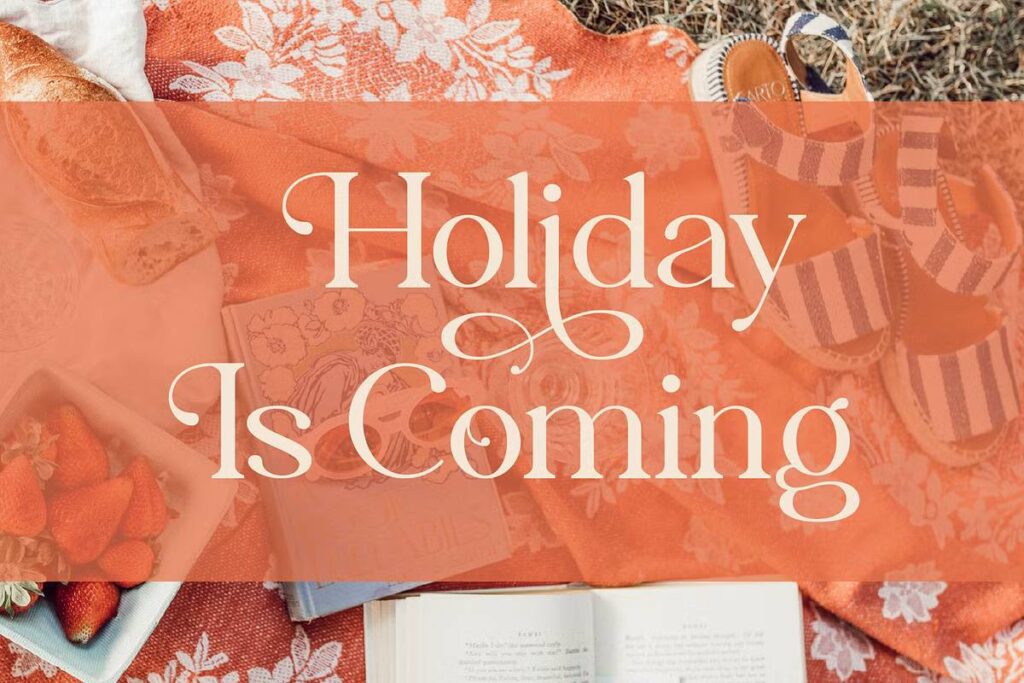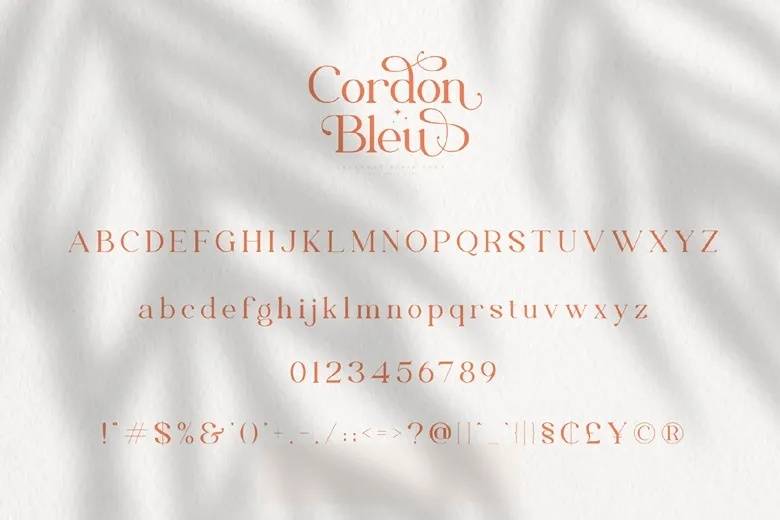
Cordon Bleu Font
Cordon Bleu is a contemporary and stylish serif typeface featuring over 50 elegant alternates. With its refined shapes, this font is perfect for various creative applications, including branding, logo design, magazines, posters, Instagram feeds, and more.